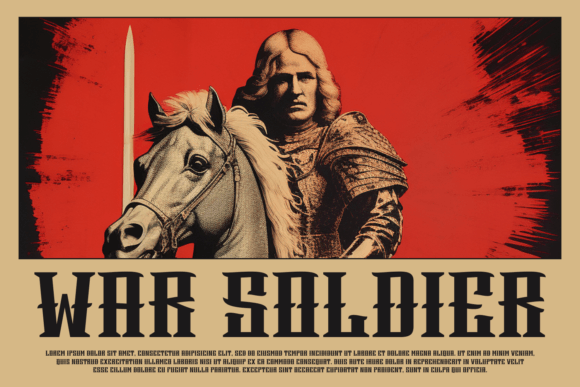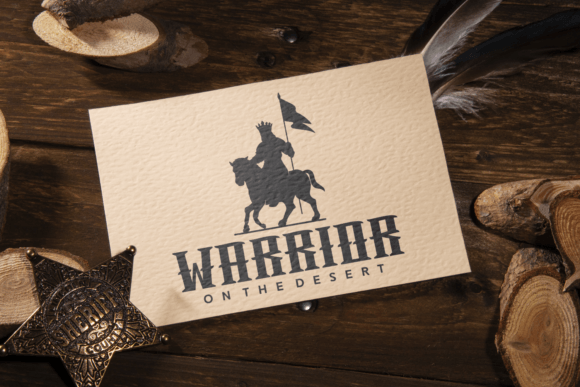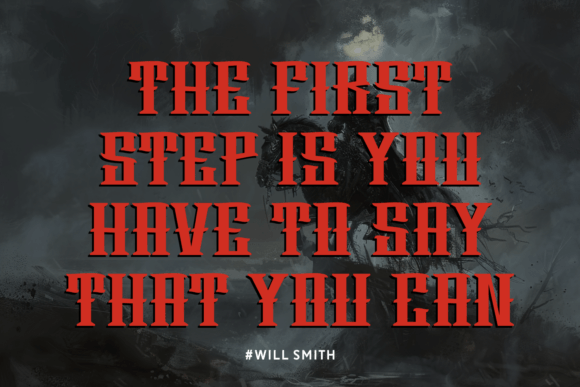
Introduction to Modern Cavalry Font
Remember the moment you stumbled upon the perfect font for your creative project? The one that instantly elevated your design from ordinary to extraordinary? For many designers, that moment is exactly what the Modern Cavalry Font offers. This classic blackletter font has been a staple in the design world for its bold, vintage, and gothic style that adds a touch of nostalgia to any project.
With its heavy strokes and striking presence, the Modern Cavalry Font is a game-changer for designers seeking a high-quality design resource that can make their work stand out. Whether you’re creating posters, logos, book covers, or branding materials, this font is sure to grab attention. And the best part? You can download it for free, complete with a transparent background, making it easy to integrate into your design.
Key Features of Modern Cavalry Font
- High-quality font designed specifically for creative projects and graphic designs.
- Modern and sleek design, perfect for use in logos, branding, and other visual identity projects.
- Comes in a single weight, making it easy to use and customize for various design needs.
Honest Review: Modern Cavalry Font
I recently came across the Modern Cavalry Font while searching for a design resource to enhance my creative project. As a designer, I’m always on the lookout for high-quality fonts that can elevate my work. The Modern Cavalry Font did not disappoint.
- What works well: The Modern Cavalry Font has a clean and modern aesthetic that is perfect for a variety of design projects. It’s also available as a free download, which is a huge bonus.
- What works well: The font comes with a transparent background, making it easy to use with any design element. It’s also highly customizable, allowing me to adjust the font size and color to suit my needs.
However, I did encounter a few limitations with the Modern Cavalry Font. ⚠️ The font only comes in a few weights, which may limit its use in certain design projects. Additionally, the font may not be suitable for projects that require a more traditional or classic look.
Overall, I’m impressed with the Modern Cavalry Font and would recommend it to designers looking for a high-quality, modern font. It’s a great design resource that can help take your creative project to the next level. ✨
Tips for Getting the Most Out of the Modern Cavalry Font
To maximize the font’s potential, experiment with different font sizes, colors, and styles. Combine the font with other design elements to create visually appealing designs. The font’s free download status makes it an excellent resource for designers working on creative projects.
The Modern Cavalry Font is suitable for a variety of design applications, including branding, advertising, and editorial design. Its high quality and transparent background make it an excellent choice for designers working on creative projects that require a professional touch.